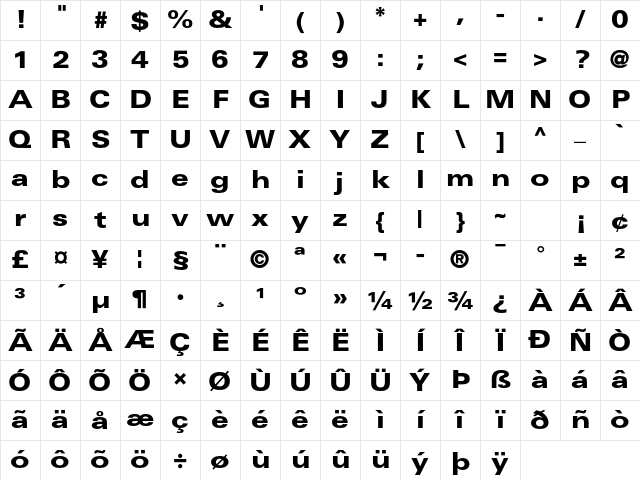
Univers LT W0573 Bold
Foundry: Monotype GmbH
Design Context for Univers LT W0573
Univers LT W0573 is a composed and adaptable typeface that performs quietly and consistently across a wide range of design contexts. Its bold stroke weight gives it real presence on the page.